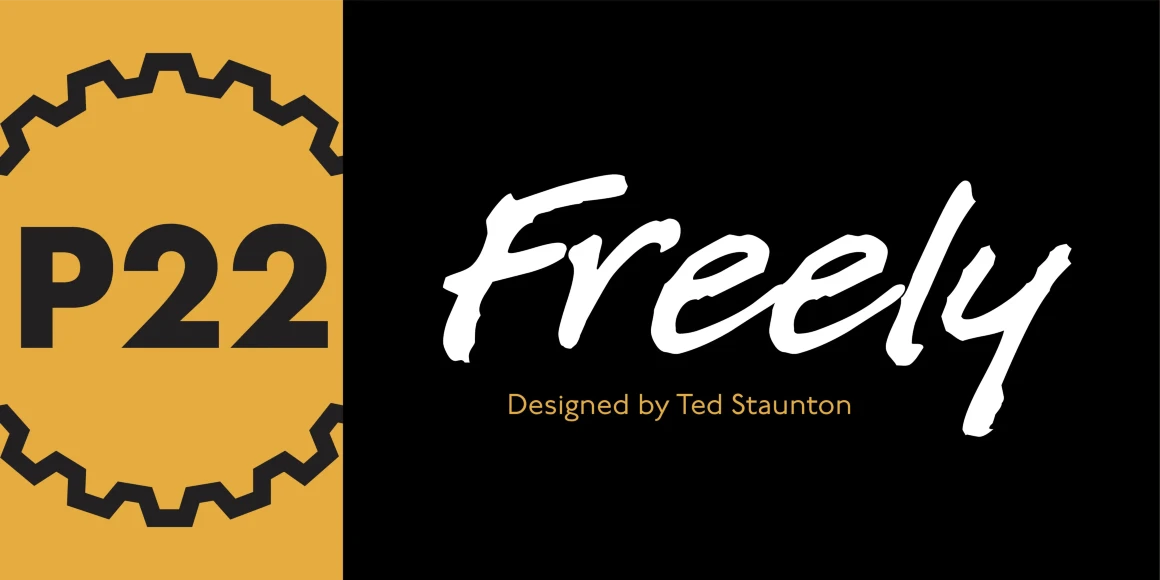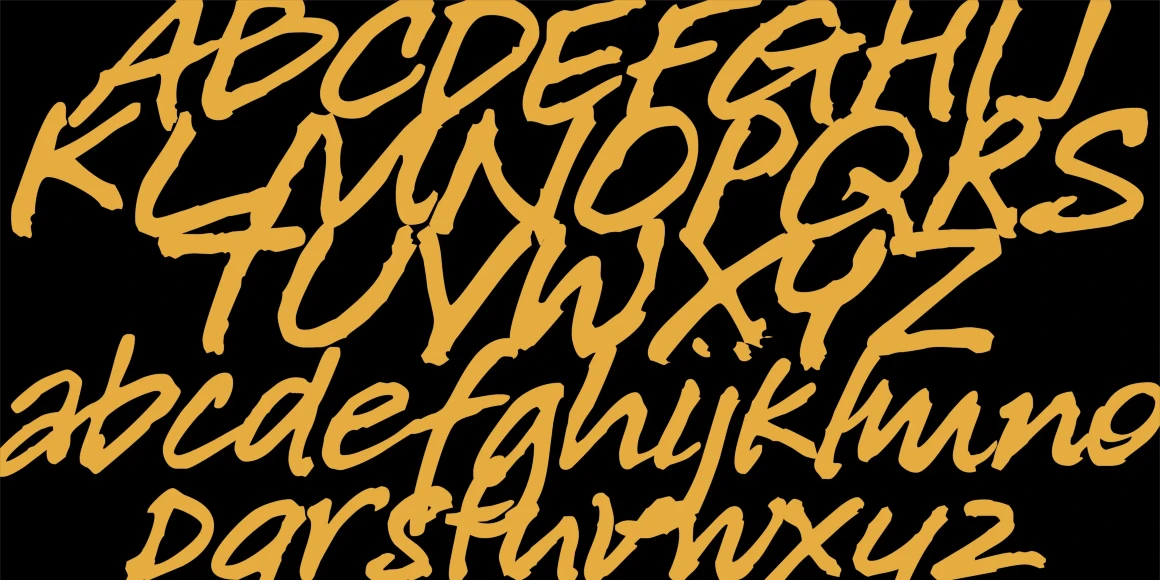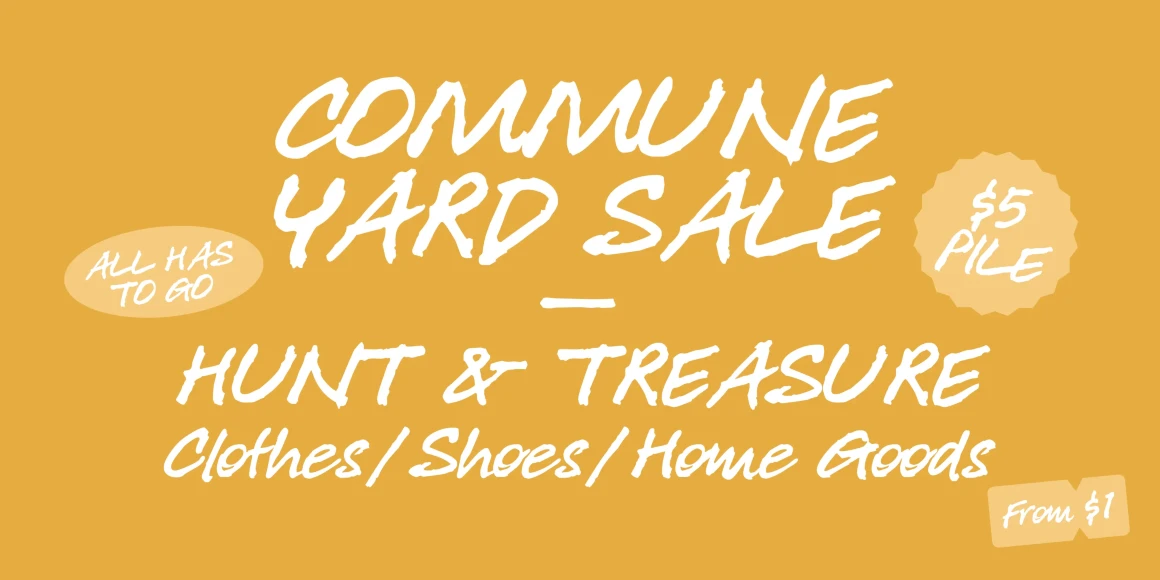
Freely
Freely is a loosely-written, slightly irregular but very legible handwriting style. Useful for the personal touch on menus, advertisements, greeting cards, flyers etc.
Designed by Ted Staunton